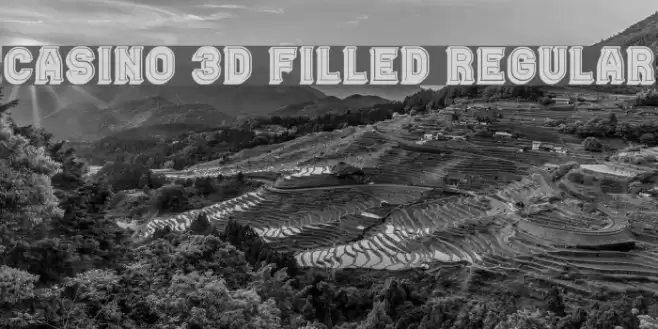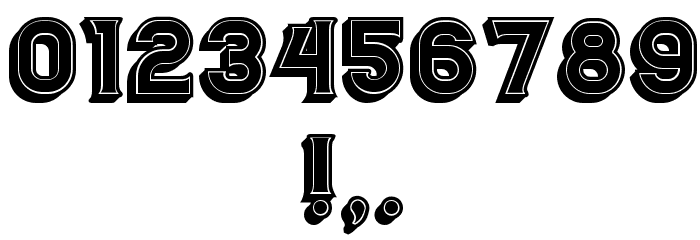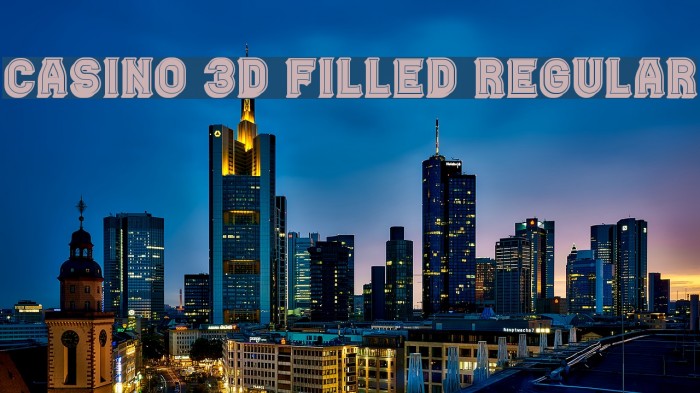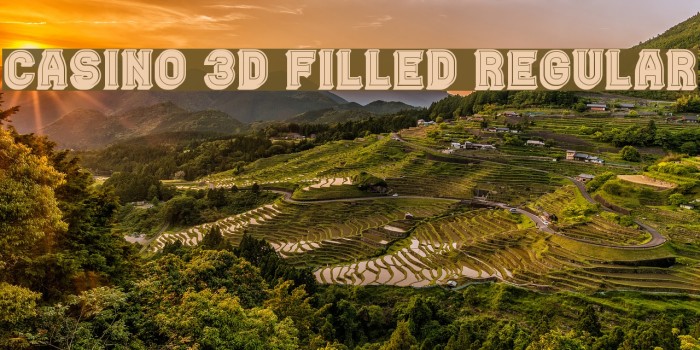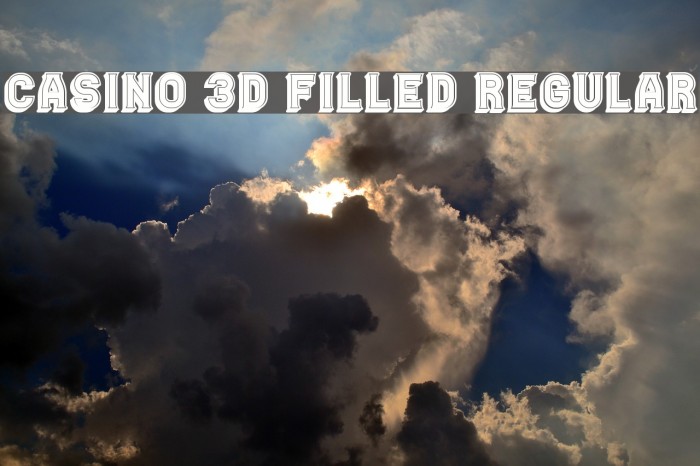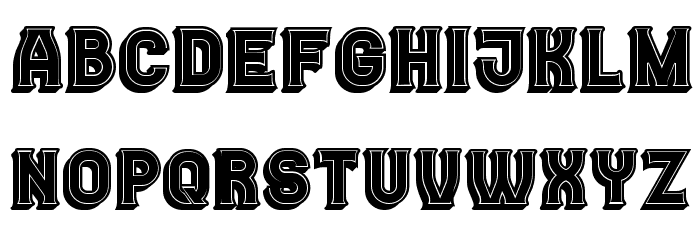
Casino 3D Filled Regular Font
Casino 3D Filled Regular Description
This font features a bold, three-dimensional design with a filled interior, giving it a striking and impactful appearance. The characters are outlined with a thick black border, enhancing the 3D effect and making each letter stand out prominently. The style is reminiscent of vintage casino signage, with a playful yet sophisticated flair. The uppercase letters are uniform in height, while the numerals and special characters maintain the same bold aesthetic, ensuring consistency across all elements. This font is ideal for creating eye-catching headlines or titles that demand attention.
A bold, 3D font with a vintage casino style and filled interior from Uncategorized fonts.
- Proposed Projects: Ideal for use in casino-themed designs, posters, signage, and any project requiring a bold, eye-catching typeface.
- Overall Style: Vintage
- Use Case: Headlines, Logos, Signage